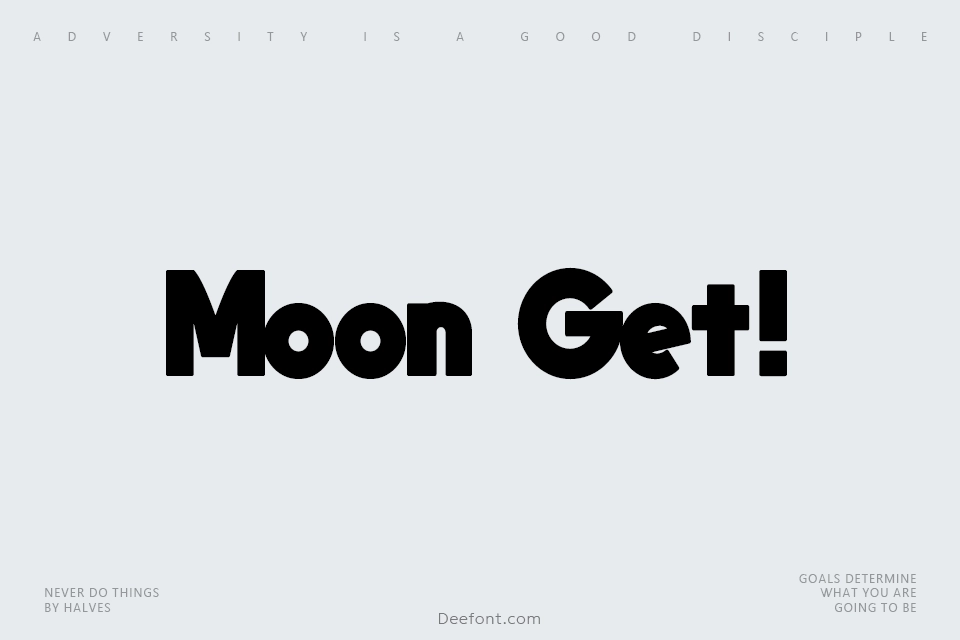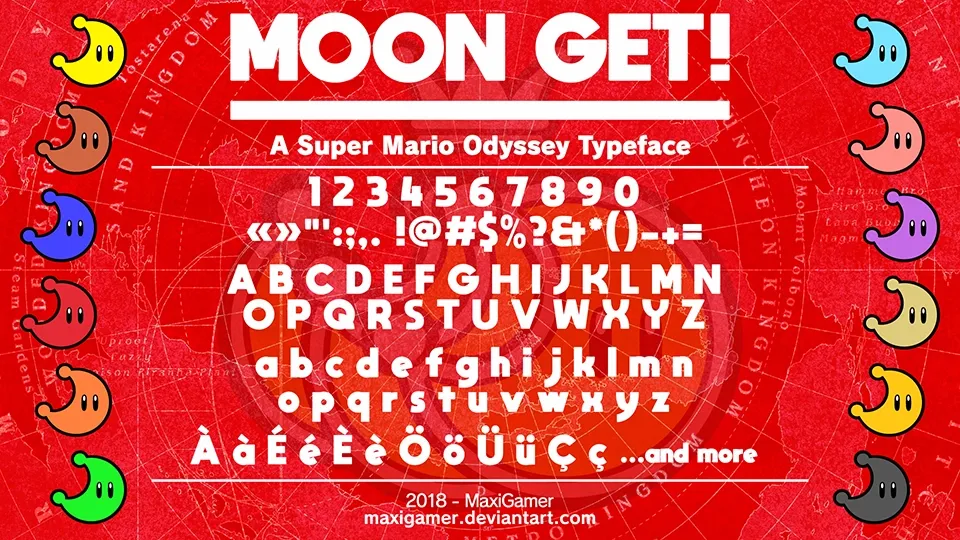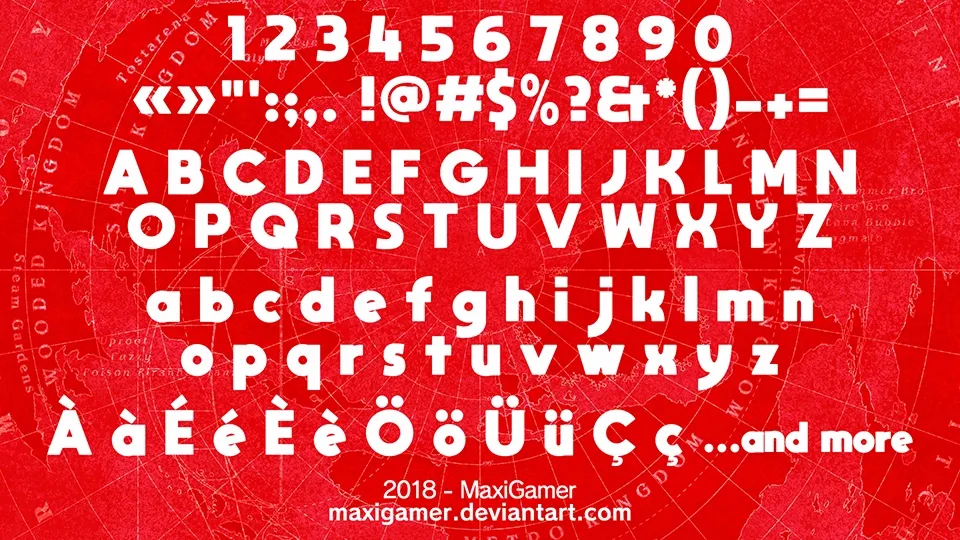
Moon Get! Font
“MOON GET!” is a typeface base on the “YOU GOT A MOON!” text and other various HUD elements of the Nintendo Switch game “Super Mario Odyssey”.